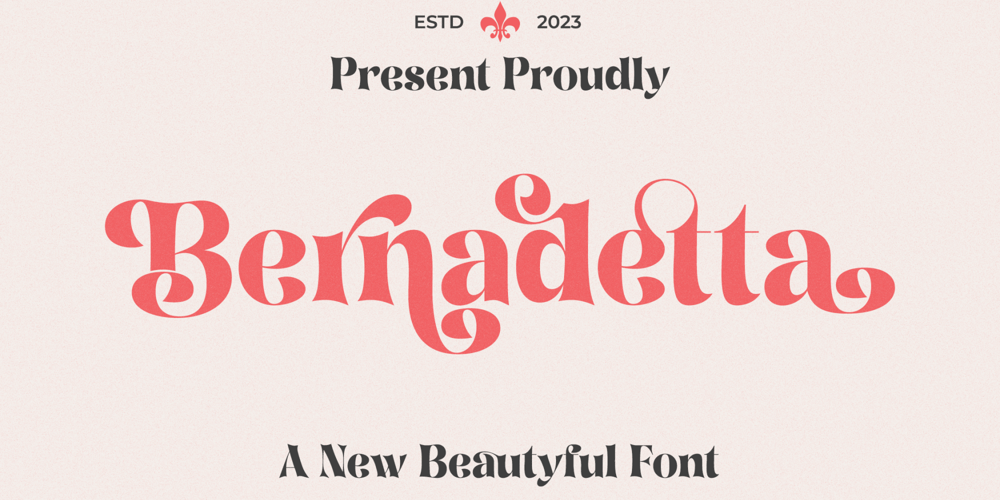
Bernadetta
Bernadetta font
Bernadetta Font Family was designed by Firman Maulana and published by Agny Hasya Studio. Bernadetta contains 2 styles and family package options. Bernadetta is a Modern Classic & Beautiful Display Serif Font Come with 2 (two) styles (regular & italic) and is created with glyph variations like alternates and ligatures. Perfect for your design projects like logos, branding, advertising, product designs, stationery, photography, art quotes, wedding designs, fashion designs, and more.Featured with Uppercase and Lowercase, Numeral and Punctuation, Multilingual Support, and Opentype Features.